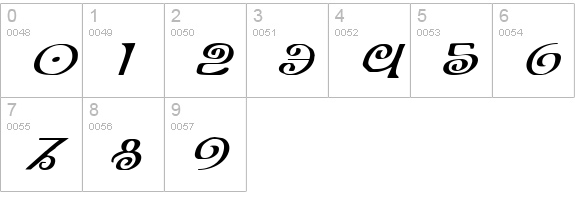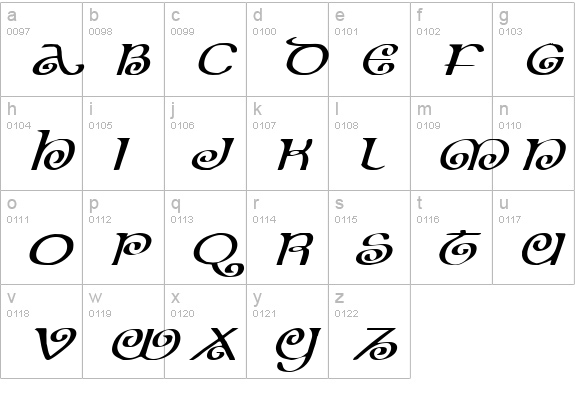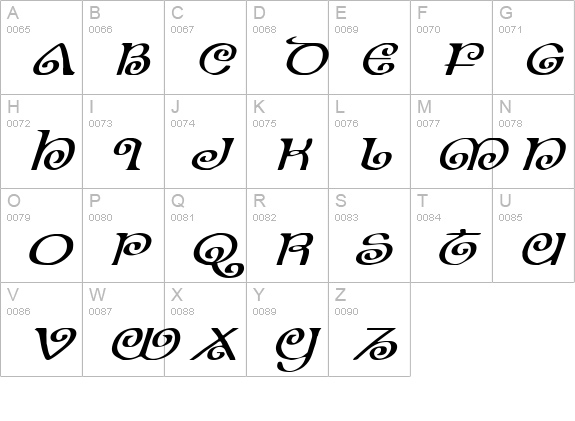
The Shire Expanded Italic Font Details
The Shire Expanded Italic is a distinctive, extended-width, italic variant in the The typeface family \xE2\x80\x94 well suited to design and typography projects.
The Shire Expanded Italic font is a charming and sophisticated typeface that exudes elegance and warmth. Its elongated and slanted letterforms give a modern twist to a classic design, making it perfect for adding a touch of style to any project. With its graceful curves and unique character, The Shire Expanded Italic font is sure to make a lasting impression. Best of all, this exquisite font is available for free download at FontsMarket.com. Whether you're working on a creative project, designing invitations, or simply looking to elevate your branding, The Shire Expanded Italic font is a versatile choice that will enhance any text it graces. Download it today and let your creativity shine with this beautiful typeface.